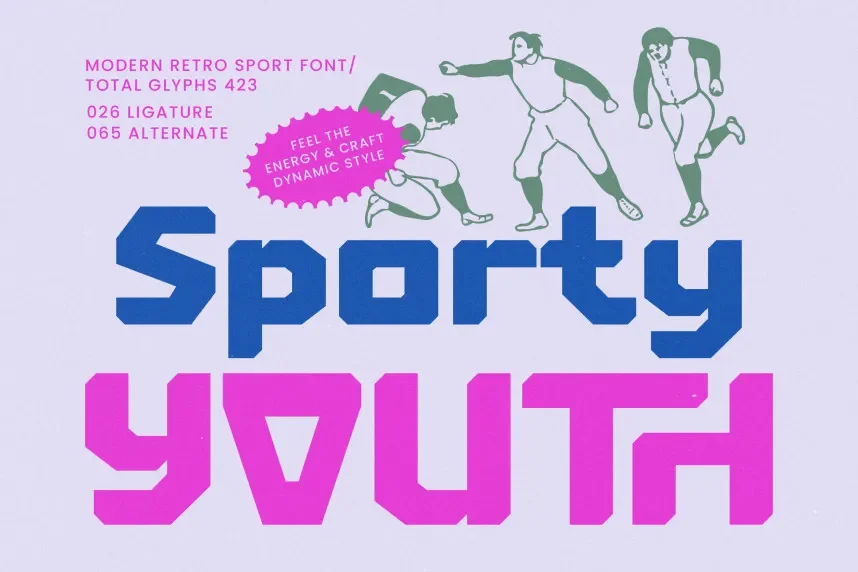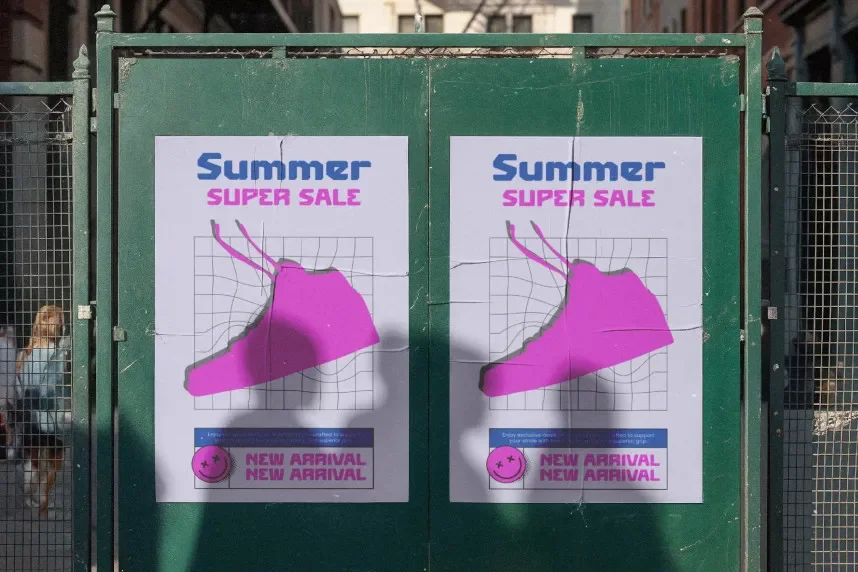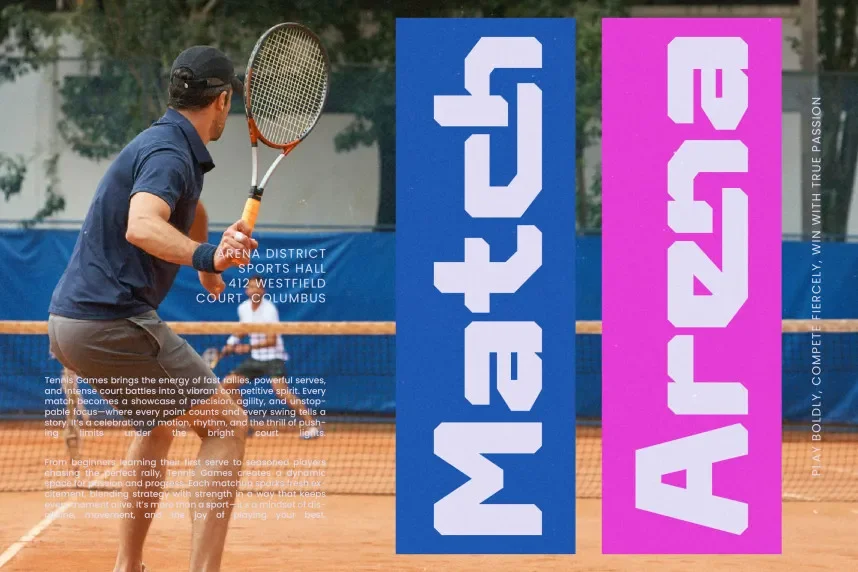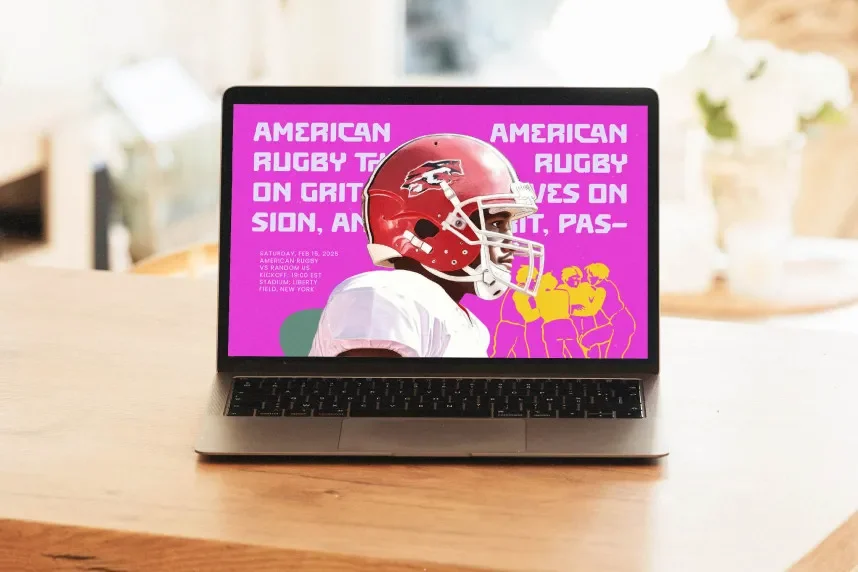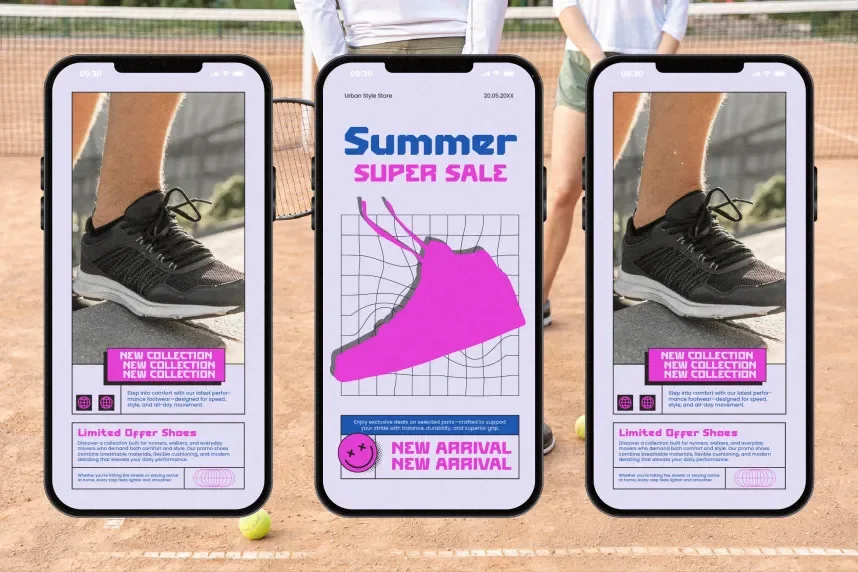
Sporty Youth Font is a display typeface designed to support energetic branding and youth-focused graphics. Designers often need bold lettering that remains clear in logos, apparel designs, and social media visuals tied to sports and active lifestyles.
Sporty Youth uses thick strokes, angular cuts, and slightly condensed letterforms. These features help maximize space while keeping characters distinct. The font favors uppercase usage and short text, making it effective for headlines, team branding, and promotional materials. Numerals and punctuation are usually included for practical layouts.